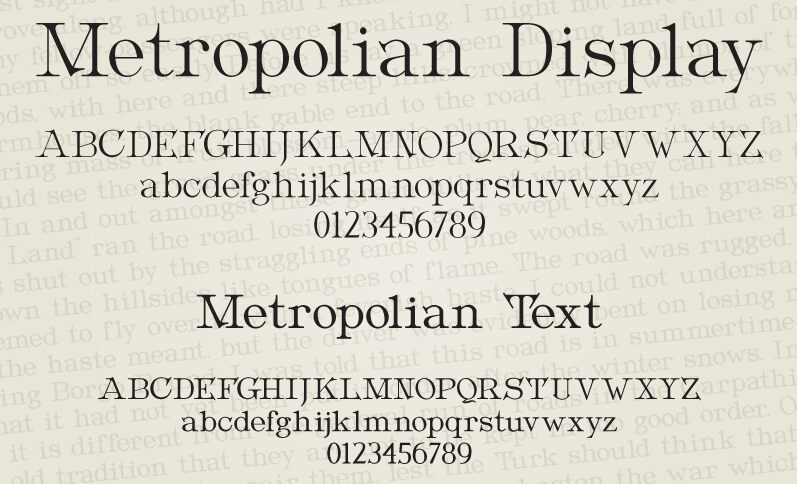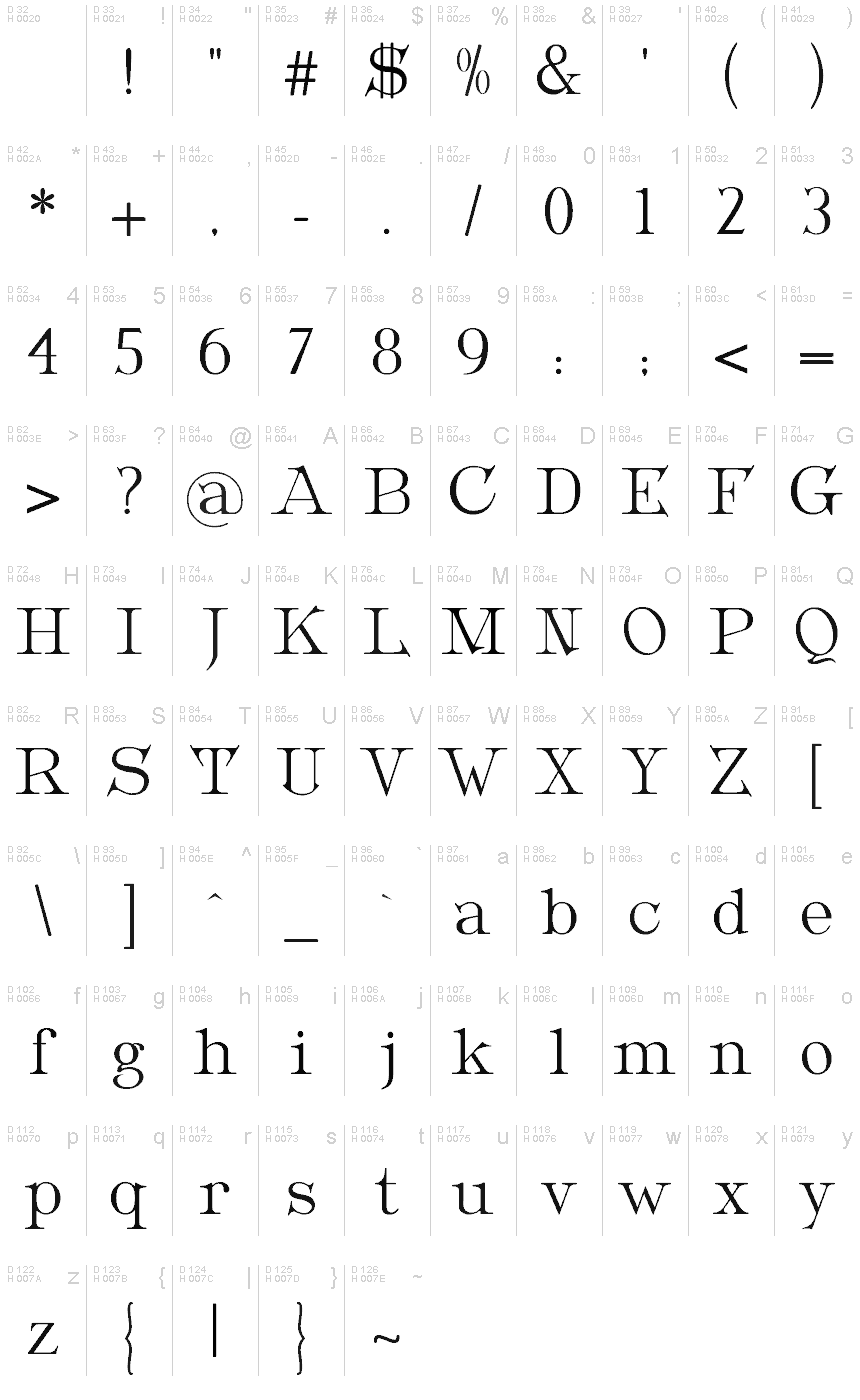
Metropolian
Metropolian, a captivating revival of the 1897 Metropolis typeface by Pilaster Davy, emanates a timeless, retro-inspired elegance. With its distinct display and text weights, this font exudes a striking balance between refined sophistication and vintage charm. The sharp, angular forms and graceful flourishes create a mesmerizing interplay of light and shadow, evoking a sense of nostalgia and sophistication.
Metropolian's versatility shines through its dual-weight design, making it a compelling choice for a wide range of applications. From eye-catching headlines and impactful branding to elegant body copy, this font seamlessly adapts to various design needs, allowing creators to craft memorable typographic experiences that captivate the audience.
Update with a more complete glyph set and improved metrics.